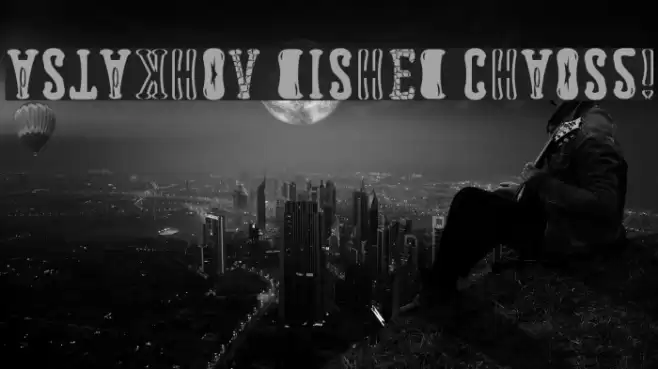
Astakhov Dished ChAoS2! Font
Astakhov Dished ChAoS2! Description
This font presents a unique and chaotic style with a mix of bold and decorative elements. Each character is distinct, featuring a variety of textures and patterns, including solid fills, outlines, and intricate designs. The uppercase and lowercase letters maintain a consistent height, while the numbers and special characters add to the eclectic feel. The font's playful and artistic nature makes it stand out, offering a visually striking appearance that is both modern and unconventional.
A bold, decorative font with unique textures and patterns from Uncategorized fonts.
- Proposed Projects: Ideal for creative projects such as posters, album covers, and artistic branding where a bold statement is desired.
- Overall Style: Modern, Decorative